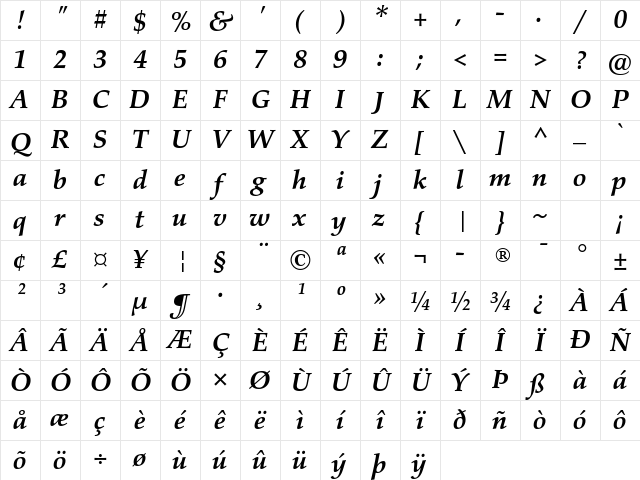
Palatino eText Bold Italic Free Font
Palatino eText Bold Italic
Designer: Hermann Zapf and Akira Kobayashi
Design Context for Palatino eText
Palatino eText is a composed and adaptable typeface that performs quietly and consistently across a wide range of design contexts. The slanted form adds forward momentum and visual energy. Its bold stroke weight gives it real presence on the page.
Pro Tip: Use Palatino eText for emphasis, pull quotes, and subheadings where its slanted energy can add rhythm to the layout.